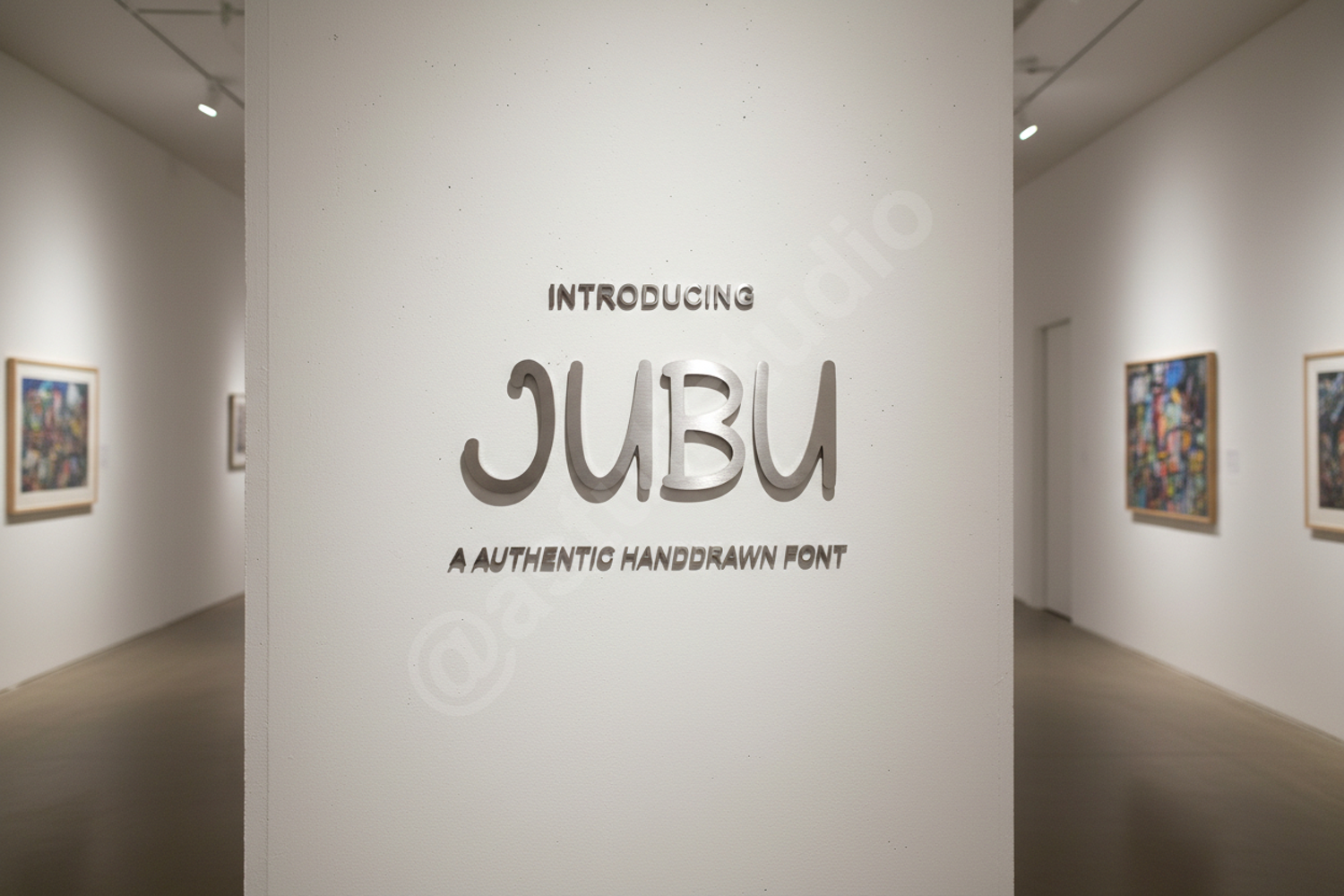
Jubu - Modern Geometric Display Font
Jubu
Jubu is a premium geometric display font that strikes the perfect balance between modern sophistication and playful character. Crafted with precision, this typeface is designed to give your projects a professional edge while maintaining high readability. Whether you are working on a high-end brand identity or a creative social media campaign, Jubu offers the versatility needed to stand out in a crowded market.